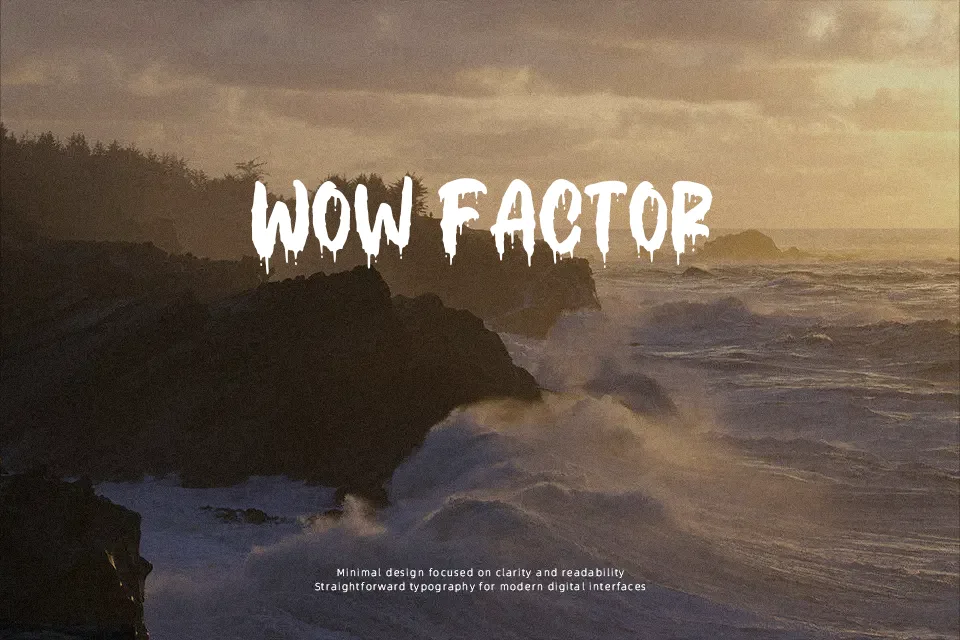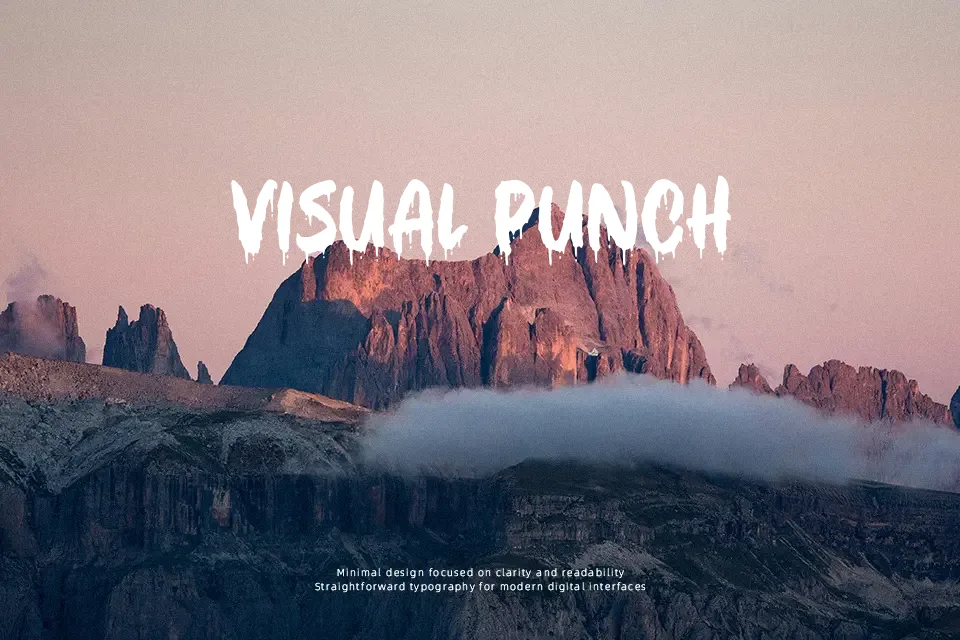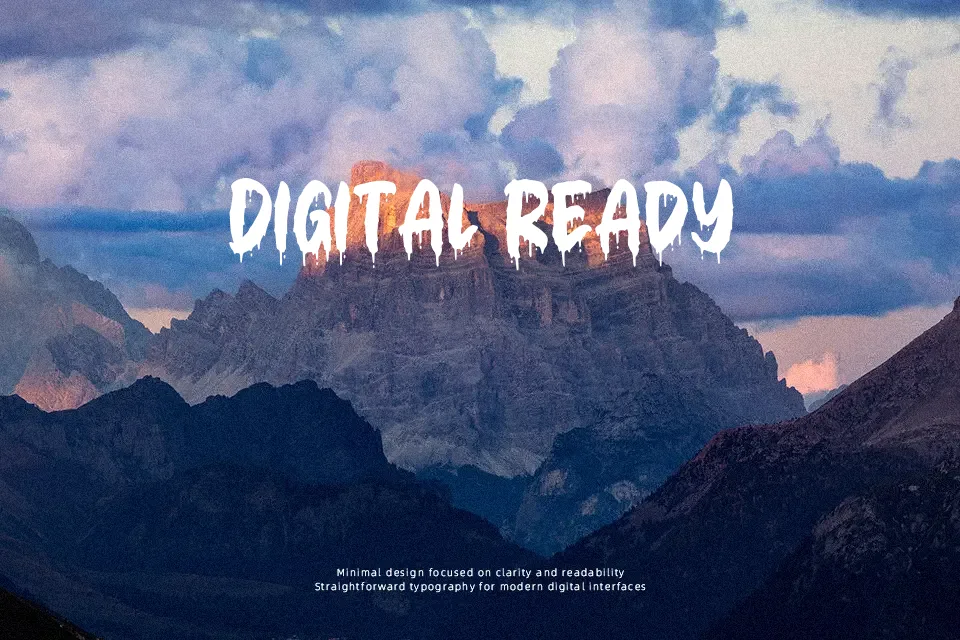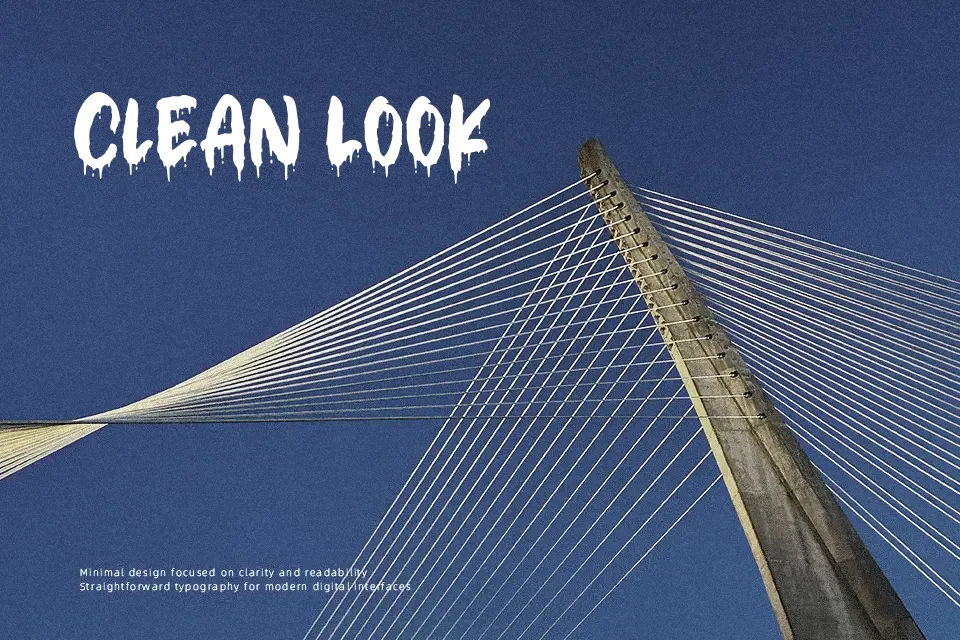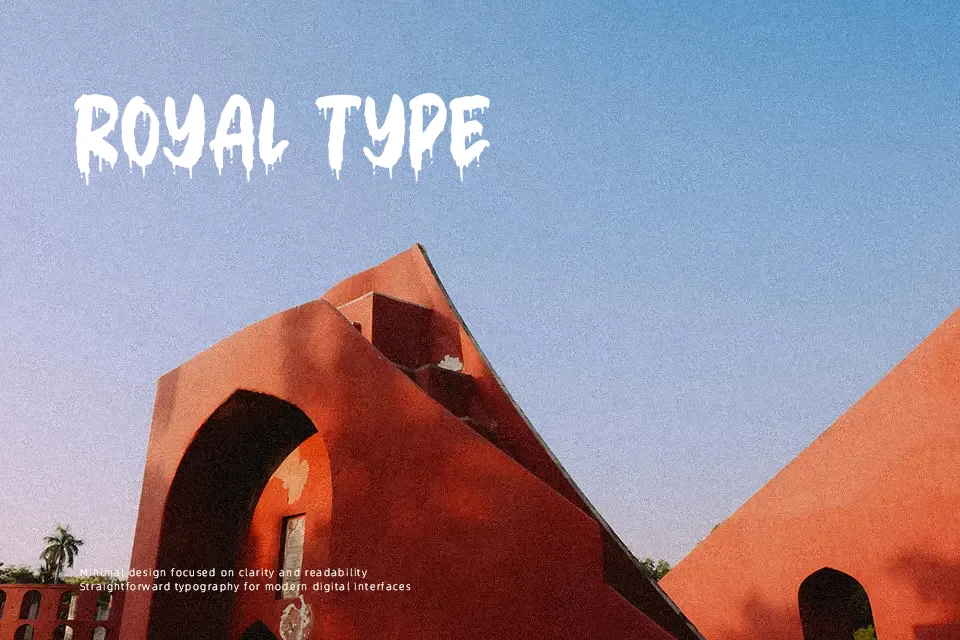
Bloody Scary Font
Designed by Creatype Studio
Bloody Scary is an aggressive, dripping display font that immediately evokes a sense of dread. Its characters feature irregular, visceral brush strokes with elongated drips, mimicking the chaotic look of freshly spilled liquid or hastily scrawled warning signs. The overall impression is intensely dark, grungy, and purposefully unrefined.
This typeface excels when deployed in large, attention-grabbing contexts such as Halloween party posters, slasher film titles, and eerie haunted house branding. Its raw energy makes it highly effective for establishing a frightening atmosphere. However, due to its heavily stylized and distorted nature, this font is completely unsuitable for body text, corporate materials, or any design requiring high legibility and a clean aesthetic.
Halloween event promotional posters
Slasher horror movie title sequences
Edgy urban apparel graphic designs
Lengthy paragraphs of reading material
Clean corporate identity branding
Minimalist digital user interfaces
Perfect for film, gaming, and halloween, with a bold and brush style.